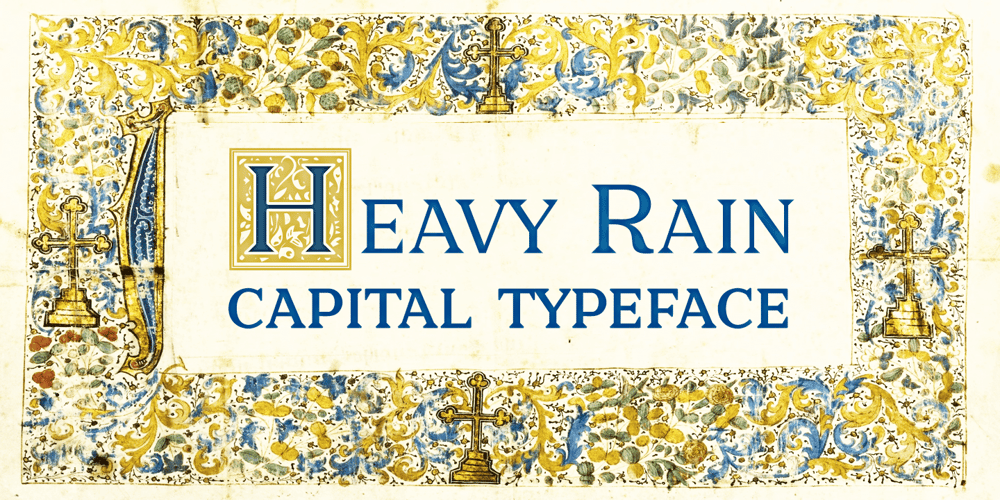
Heavy Rain Font Family was designed by Måns Grebäck and published by Mans Greback. Heavy Rain contains 2 styles and family package options. Heavy Rain is a decorative roman typeface. Drawn and created by Mans Greback during 2020 and 2021, this medieval serif font has a distinct classic style and a historical character.It gives antiquity to any graphic project, and with its ornamental capitals it accentuates your message. In addition to the decorated uppercase, it is provided in a regular, simplified text style.Heavy Rain is built with guaranteed top-notch quality.It has extensive lingual support, covering all Latin-based languages.It contains all characters and symbols you’ll ever need, including all punctuation and numbers.